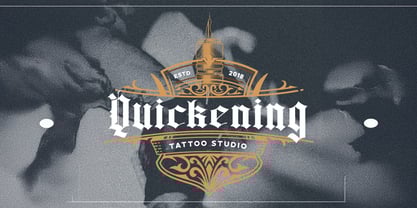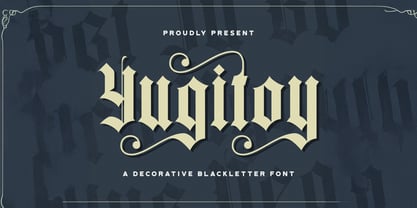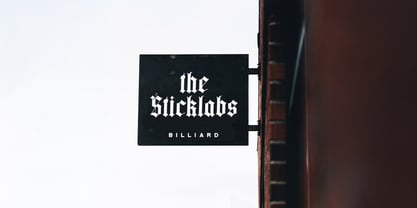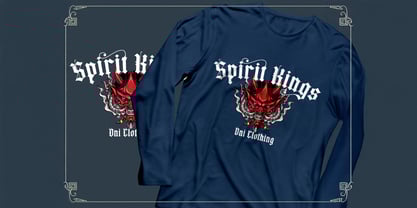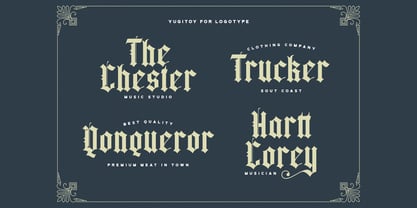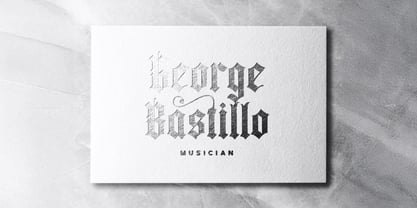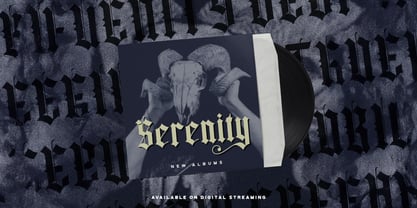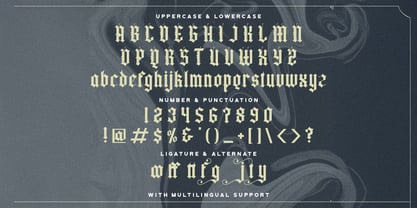
The Yugitoy Font Family was designed by Virgiawan Listanto and published by Stringlabs Creative Studio. Yugitoy contains 1 styles. More about this family
Yugitoy is a striking Blackletter font that fuses medieval grit with modern edge. With its sharp angles, intricate detailing, and heavy presence, Yugitoy delivers a bold, fearless vibe that commands attention in any design. Perfect for logos, posters, streetwear, and music branding, Yugitoy adds intensity and gothic flair to projects that need attitude and style.
Designers: Virgiawan Listanto
Foundry: Stringlabs Creative Studio
Yugitoy